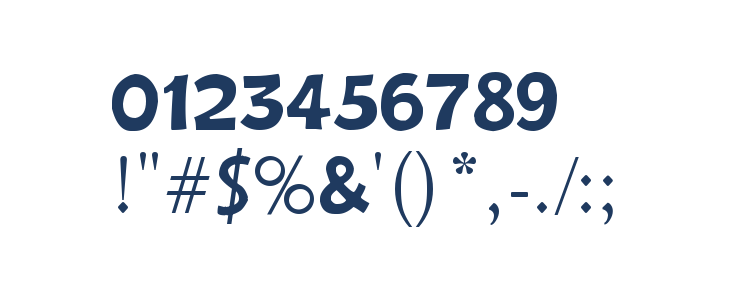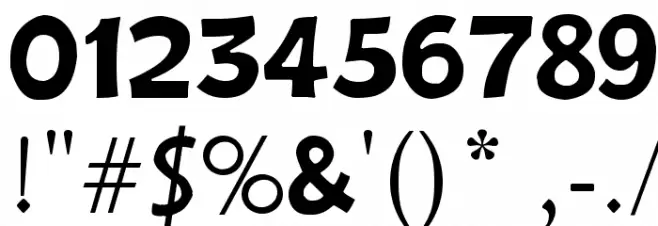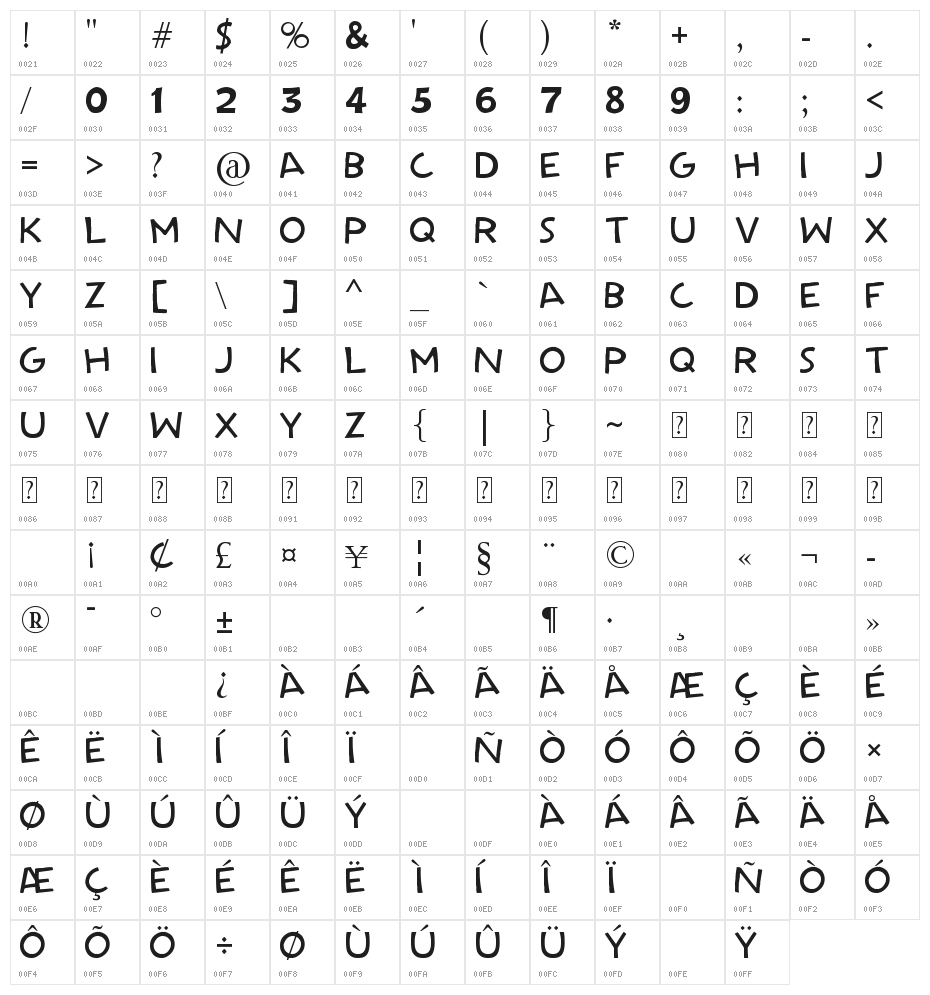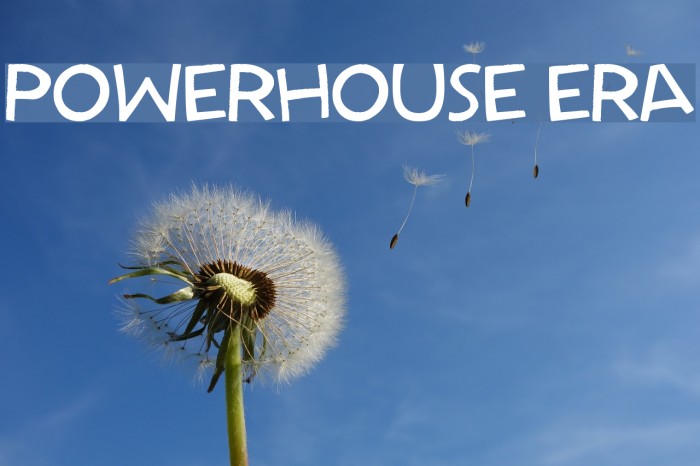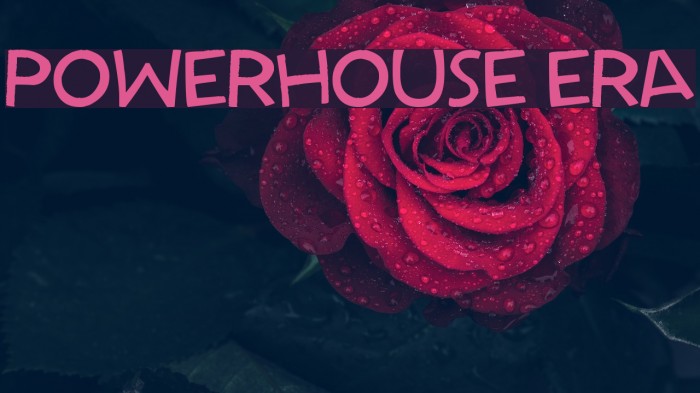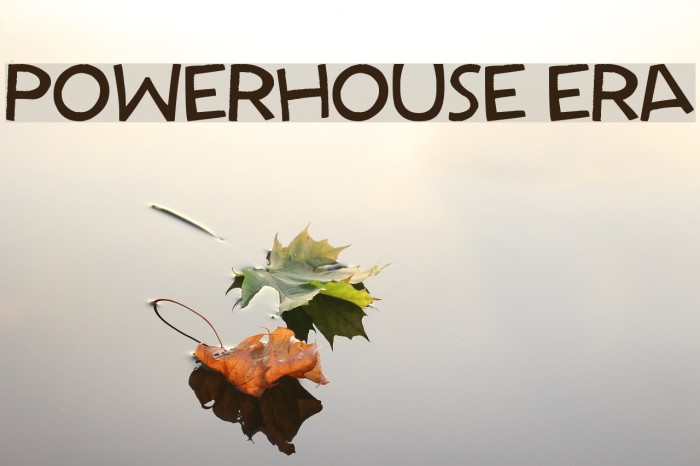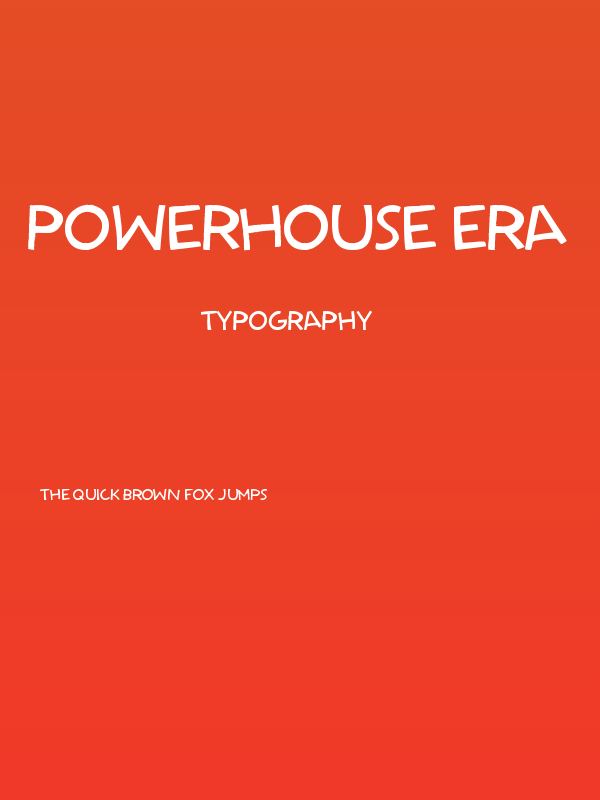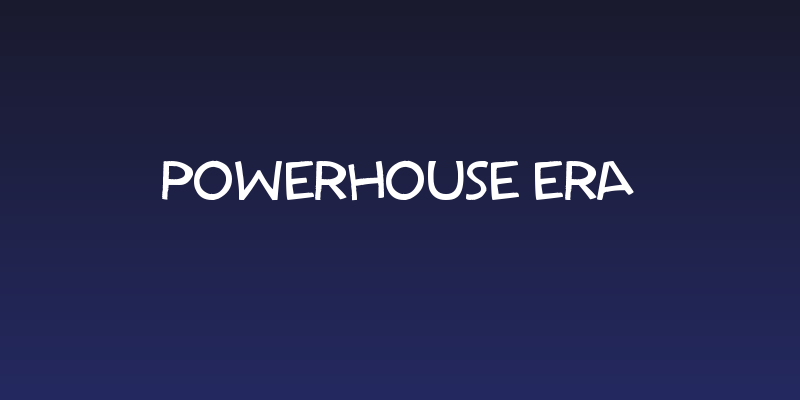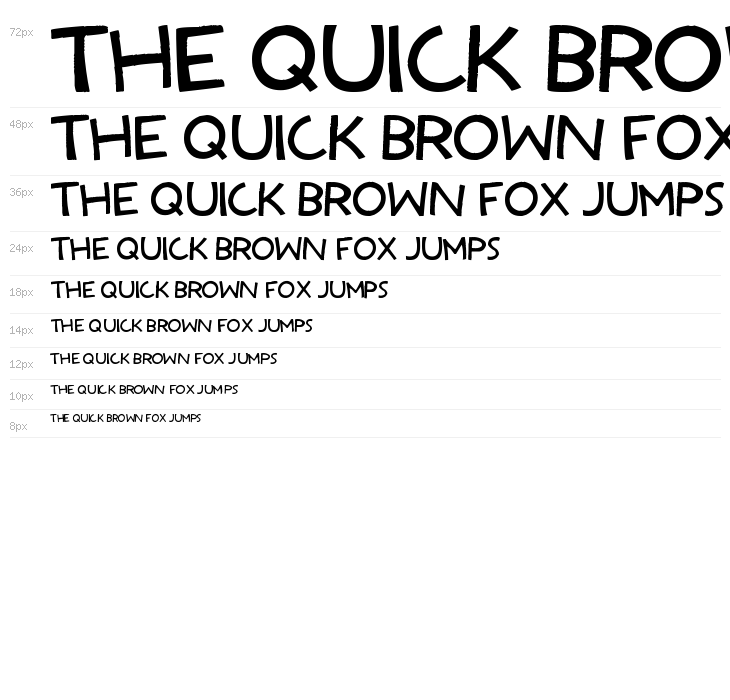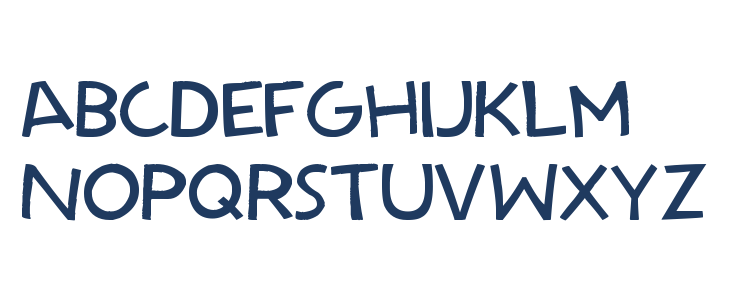
Powerhouse Era Font
Powerhouse Era Description
This font exudes a playful and energetic vibe, characterized by its bold and slightly irregular strokes. The letters have a hand-drawn quality, with a slight tilt and varying thickness that adds a dynamic feel. The uppercase and lowercase letters maintain a consistent style, with rounded edges and a casual appearance. The numerals are bold and easily legible, complementing the overall style. Special characters are included, maintaining the same lively aesthetic. This font is perfect for projects that require a fun and informal touch, such as children's books, posters, or creative branding.
| Proposed Projects | Ideal for children's books, posters, creative branding, and informal designs. |